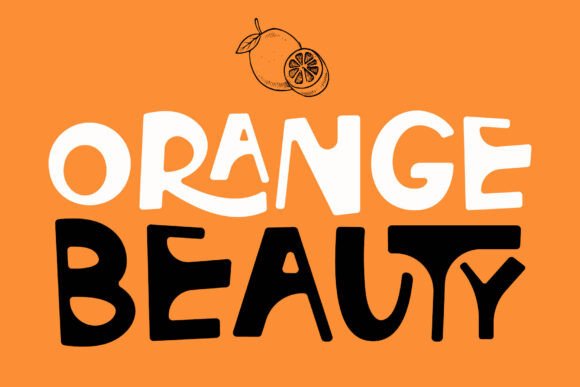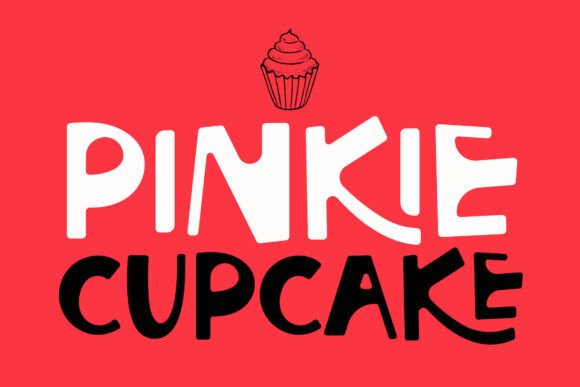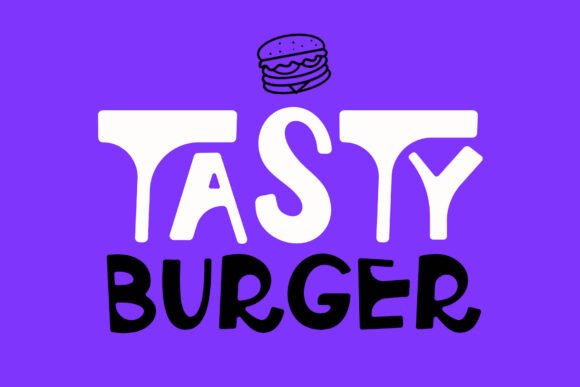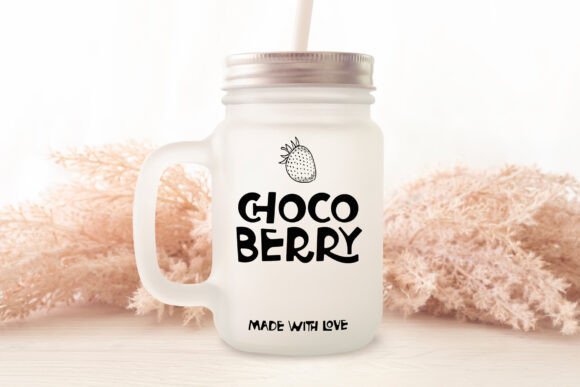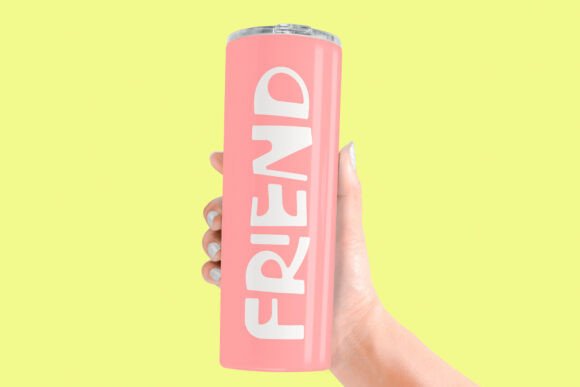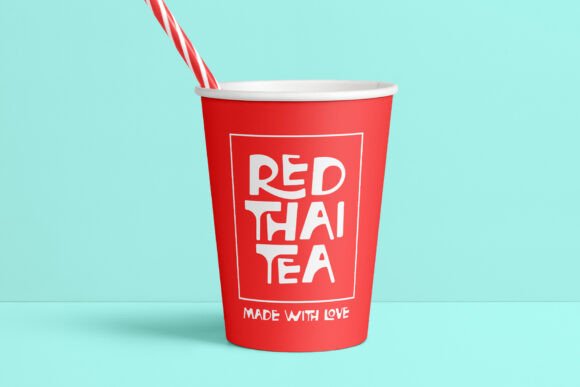
Introducing Grilled Noodle Font: Adding a Dash of Quirkiness to Your Designs
Are you tired of using the same old fonts in your designs? Look no further than Grilled Noodle Font, a quirky and bold all-caps display font that’s sure to add a dash of personality to your work. With its messy charm and playful energy, this font is perfect for designers and crafters who want to bring a little fun and flavor to their projects.
The Characteristics of Grilled Noodle Font
Grilled Noodle Font is a hand-drawn display font that’s packed with unique character and creativity. Its bouncy shapes and irregular strokes give it a spontaneity that’s hard to find in more traditional fonts. The font comes in all-caps, making it perfect for headlines, titles, and other applications where you want to make a statement.
One of the standout features of Grilled Noodle Font is its use of unique ligatures. These special characters add an extra layer of creativity to your designs, allowing you to create words and phrases that are truly one-of-a-kind. Whether you’re designing a logo, a poster, or a children’s book, Grilled Noodle Font’s ligatures are sure to help you stand out from the crowd.
Grilled Noodle Font is a versatile font that’s perfect for a wide range of design applications. Here are just a few ideas to get you started:
- Branding: Use Grilled Noodle Font to create a bold and eye-catching logo that’s sure to grab attention.
- Food Packaging: Add a playful touch to your food packaging with Grilled Noodle Font’s fun and quirky design.
- Posters: Create eye-catching posters that are sure to stand out with Grilled Noodle Font’s bold and colorful design.
- Children’s Books: Bring Grilled Noodle Font’s playful energy to your children’s books and make reading a fun and engaging experience.
Why Designers and Crafters Love Grilled Noodle Font
So why do designers and crafters love Grilled Noodle Font? Here are just a few reasons:
- Unique Character: Grilled Noodle Font has a unique character that’s hard to find in more traditional fonts.
- Playful Energy: The font’s playful energy is infectious and fun, making it perfect for designs that need a little extra personality.
- Easy to Read: Despite its quirky design, Grilled Noodle Font is easy to read, even in larger blocks of text.
- Versatile: Grilled Noodle Font is a versatile font that can be used in a wide range of design applications.
Grilled Noodle Font is a quirky and bold all-caps display font that’s perfect for designers and crafters who want to add a little fun and flavor to their designs. With its unique character, playful energy, and versatility, this font is sure to become a staple in your design toolkit. So why wait? Download Grilled Noodle Font today and start bringing a little extra personality to your designs!